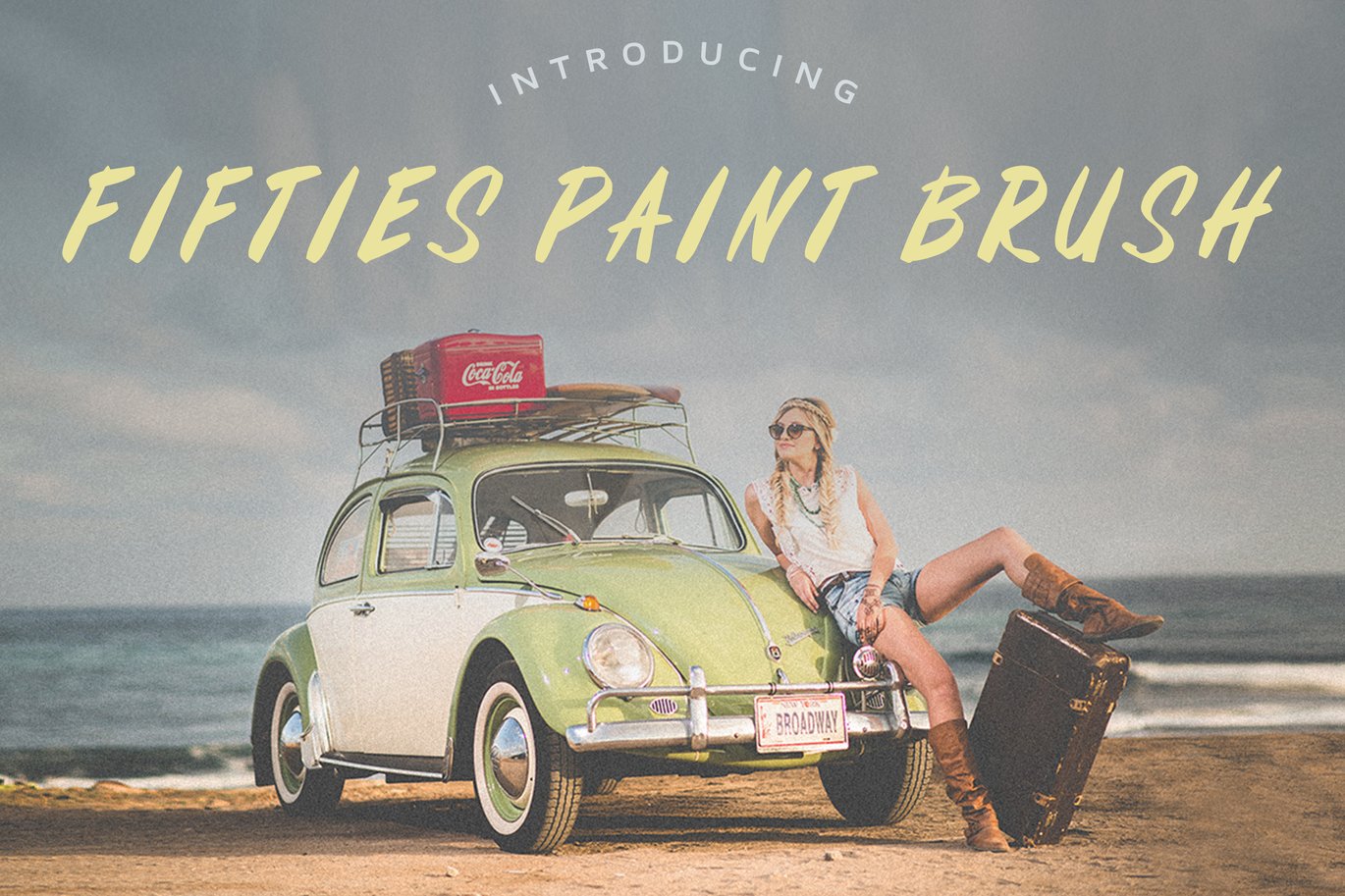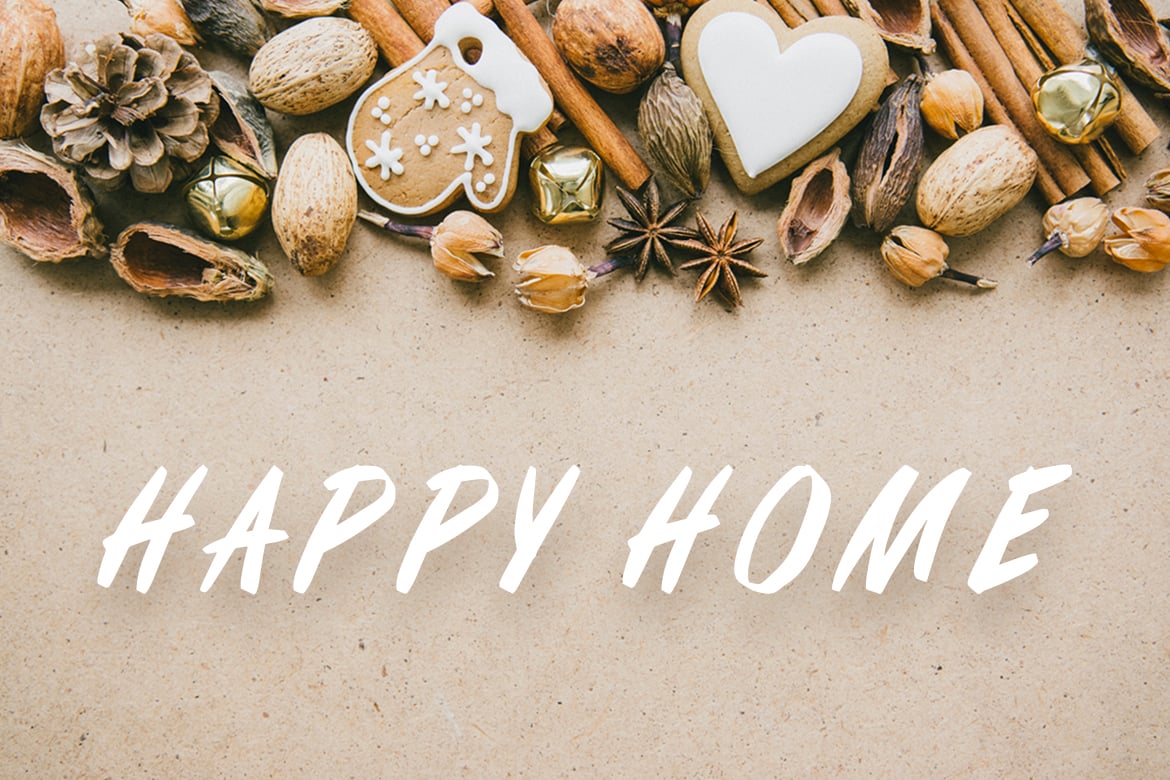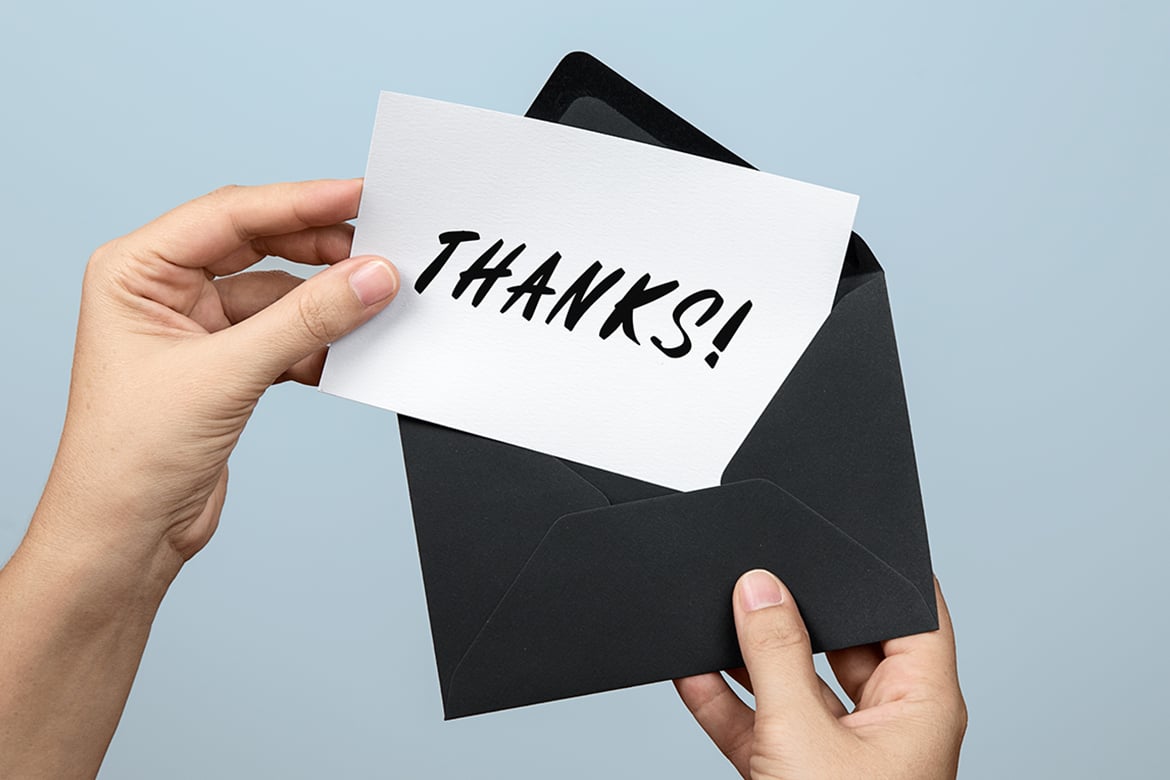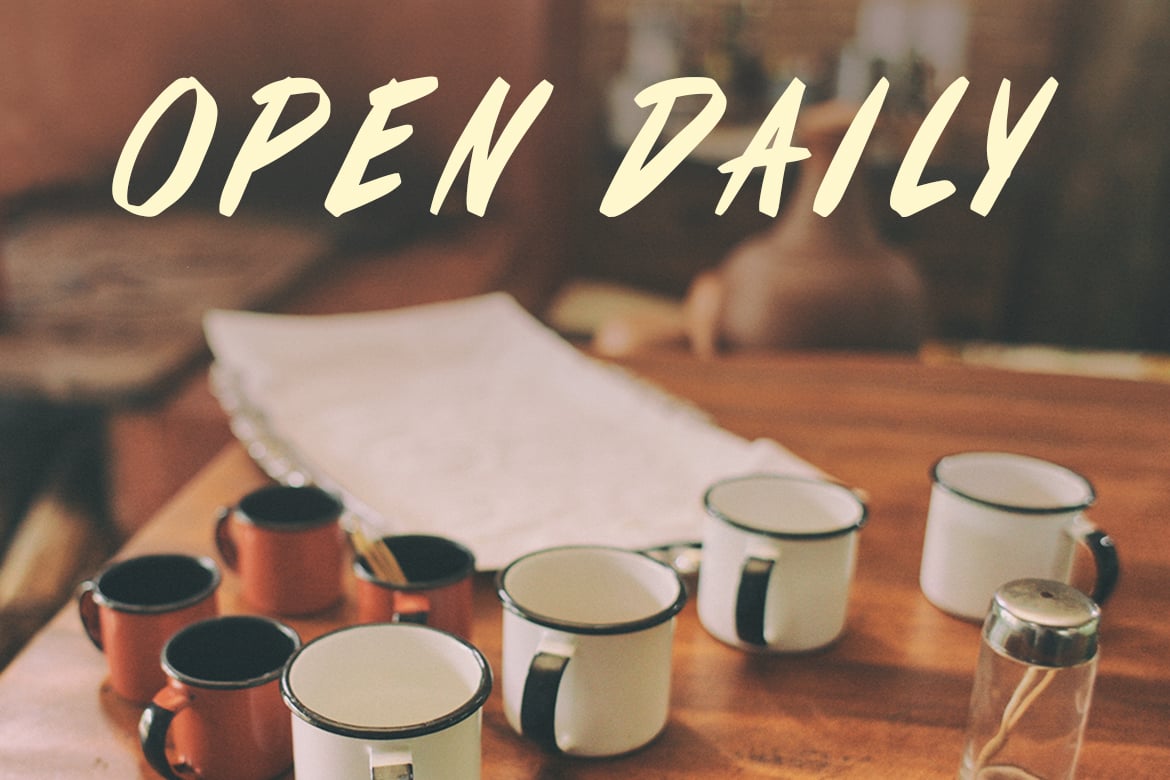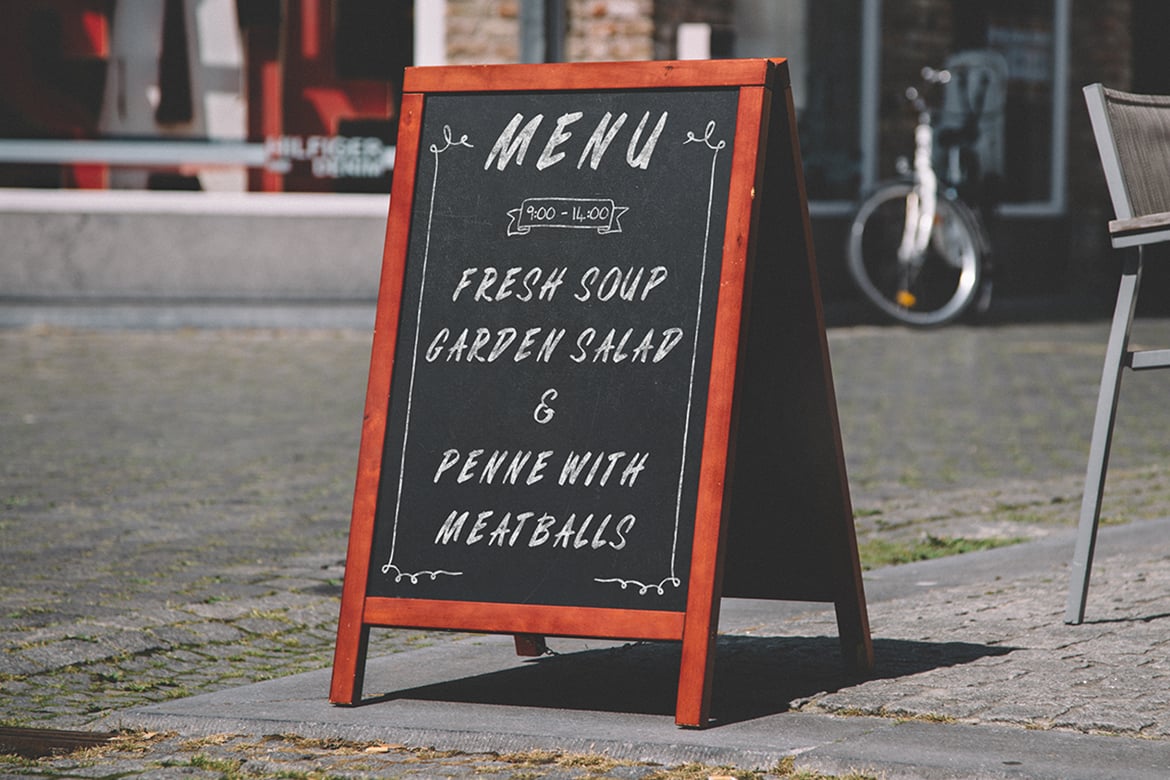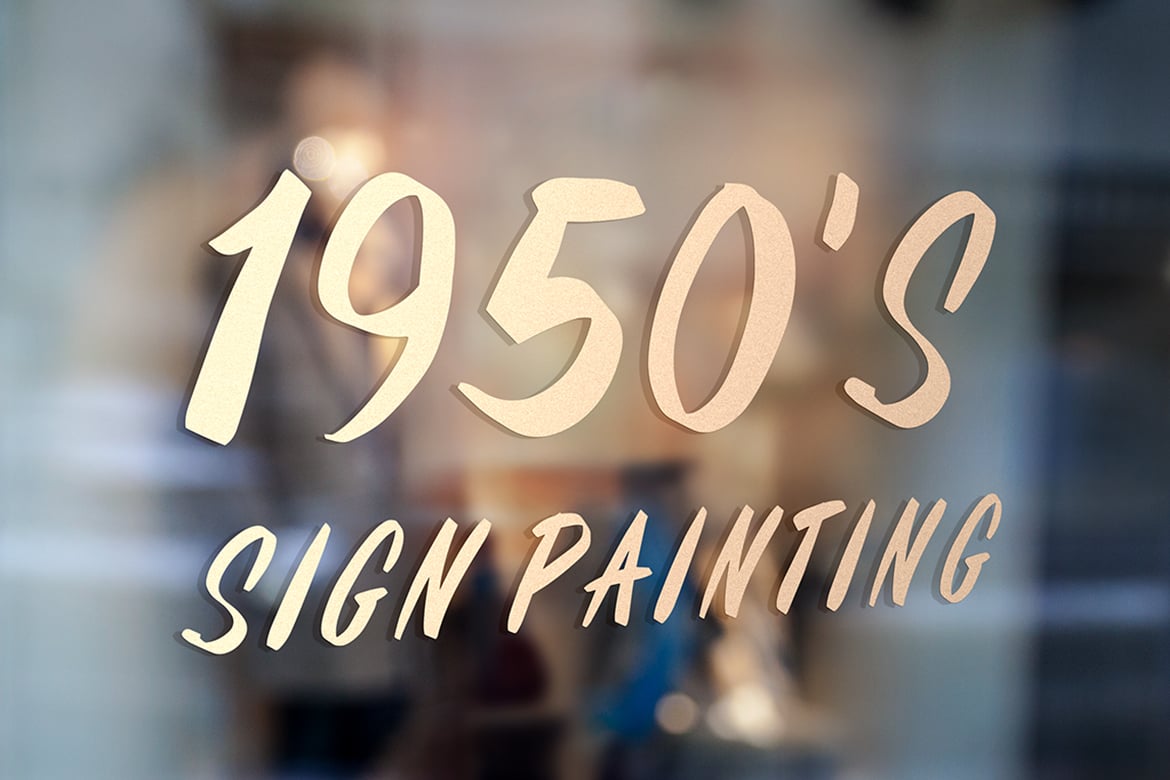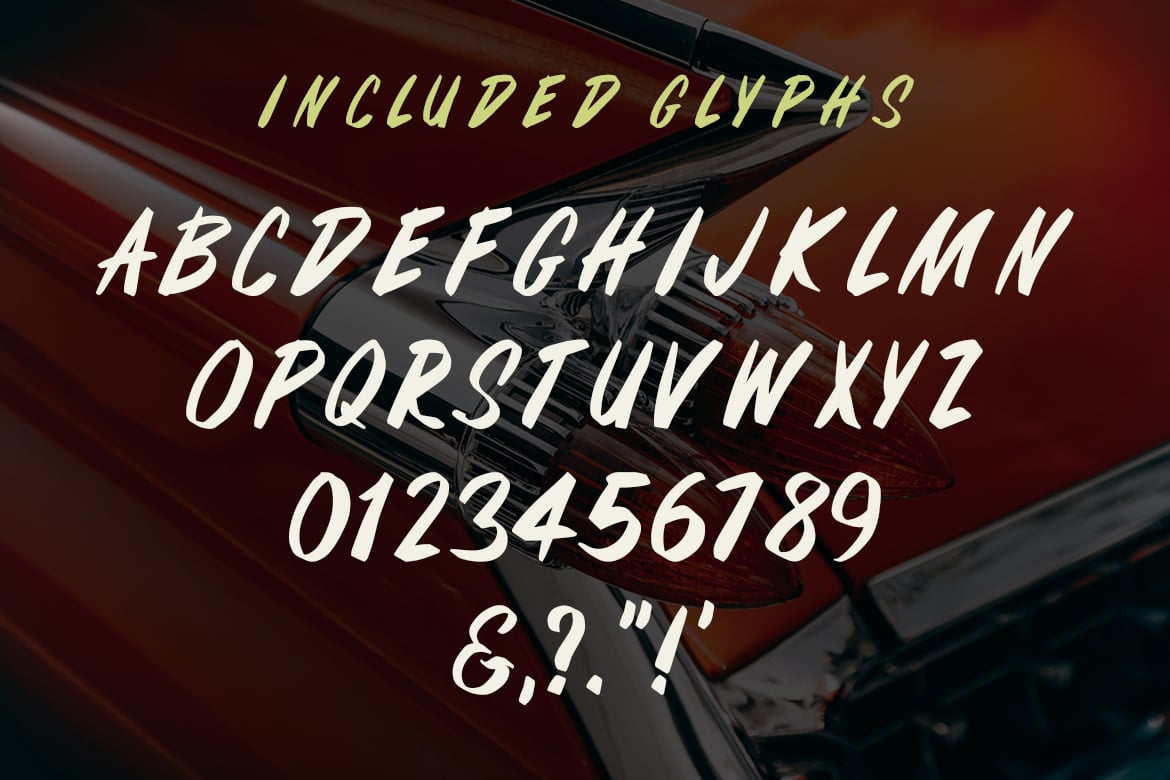
Fifties Paint Brush Font
Fifties Paint Brush is a vintage all-caps font with a retro style. Each letter was handwritten using a calligraphy pen and was inspired by old signs and advertising from the 1950s. This is the perfect font for a restaurant menu, holiday cards, posters, labels, or any project that needs a fun, casual script.